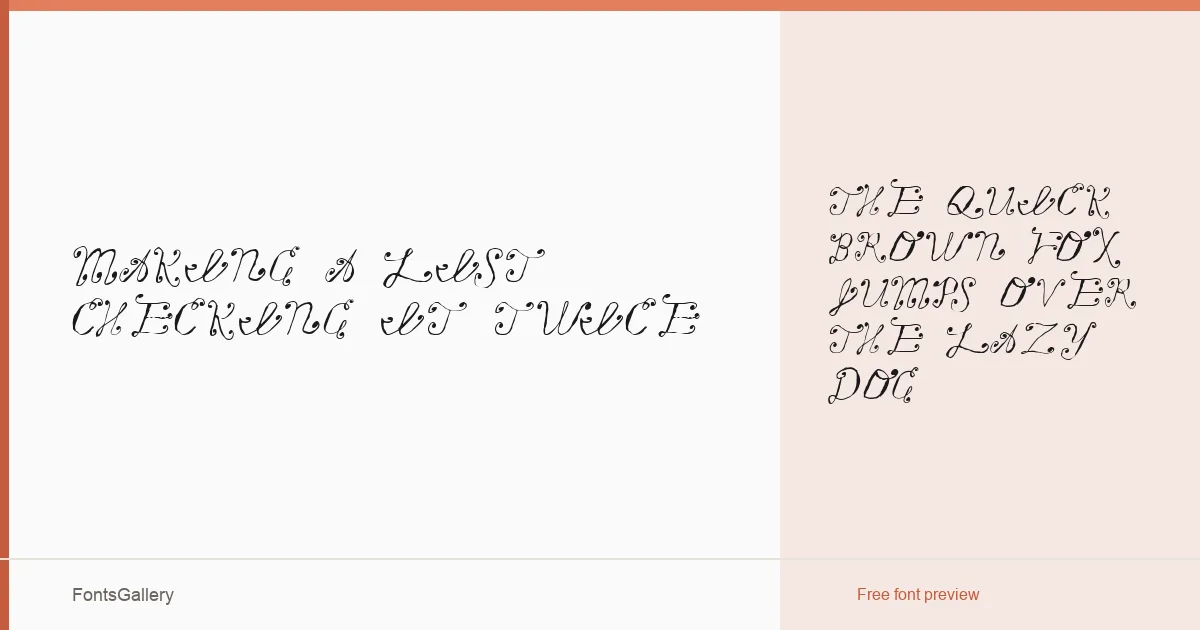
About Making a List Checking It Twice Font
Making a List Checking It Twice is a charming handwritten typeface from JLH Fonts that brings a warm, festive personality to any project. Its playful and whimsical character makes it instantly inviting, evoking the hand-penned notes and holiday cheer of the season. This font is a delightful choice for anyone looking to add a personal, rustic touch to their designs.
As a handwritten font with playful and rustic qualities, this typeface features organic, flowing letterforms that feel naturally hand-crafted rather than mechanically precise. The whimsical qualities shine through in its lively strokes and informal character shapes, giving each letter a sense of spontaneous charm. The overall aesthetic balances approachable warmth with a festive, storybook-like energy.
This font shines in invitation cards, greeting cards, and children's book layouts where a personal, handcrafted feel is desired, and it also performs beautifully in social media graphics that call for warmth and personality. For compelling typographic contrast, it pairs wonderfully with the elegant script style of Aresink or the clean, neutral structure of Helvetica to ground its expressive character.